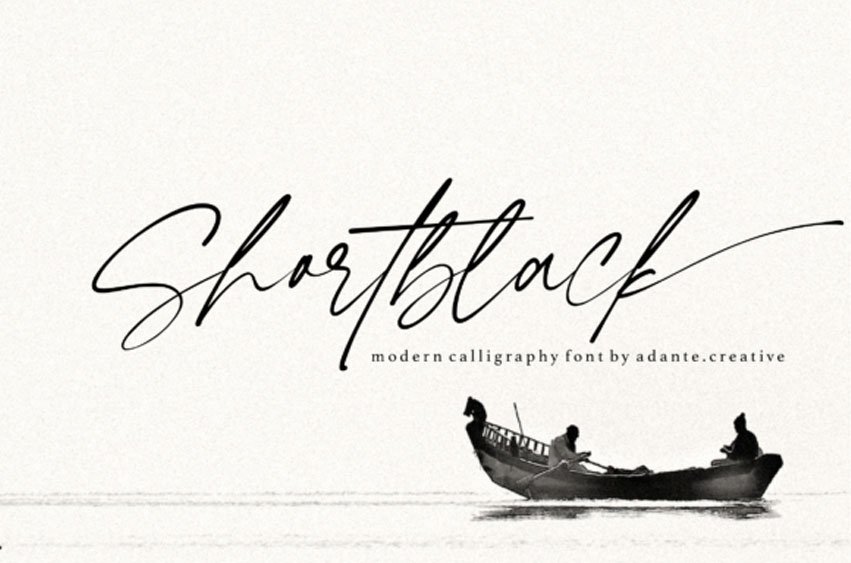
Shortblack Font is a lovely and timeless handwritten font. It is the best choice for creating eye-catching logos, branding, and quotes.
Every letter has a unique and beautiful touch, which will make your design come alive! This font is PUA encoded which means you can access all the glyphs and ligatures with ease!